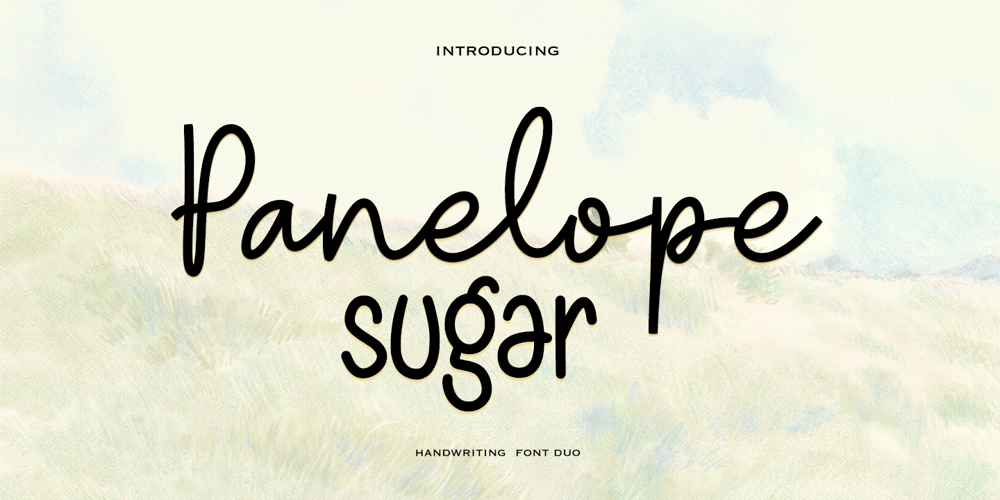
Panelope sugar Font Family was designed by Muhammad Zaini and published by Cocodesign. Panelope sugar contains 2 styles and family package options. Panelope is a handwriting design font duo, including Regular. This font is casual and beautiful with swash. Can be used for various purposes. such as logos, product packaging, wedding invitations, branding, headlines, signage, labels, signatures, book covers, posters, quotes, and more.If you need help or have questions, please let me know. I am happy to help 🙂 Thank you & Congratulations on Designing!